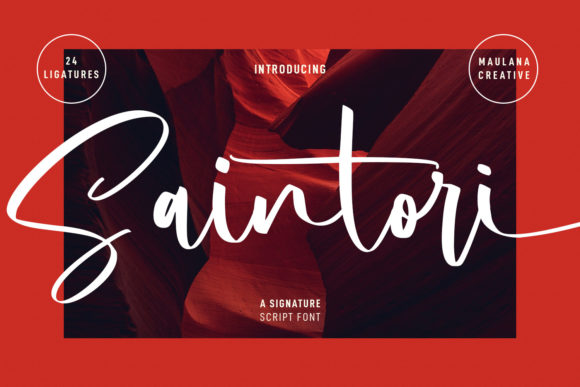
Step into the realm of artistry with Saintori Font, a captivating creation by Maulana Creative, where elegance and uniqueness intertwine. This exquisite script font, adorned with medium contrast strokes, dances across your designs with a lively rhythm, creating a visual symphony that captivates the senses.
With its playful characters, Saintori Font breathes life into your words, transforming them into captivating expressions of art. Its graceful ligatures and delicate alternates add an air of sophistication and charm, enhancing your designs with a touch of exclusivity.
Indulge in the versatility of Saintori Font, a font that effortlessly adapts to a myriad of creative endeavors. Whether you're designing logos, branding materials, social media posts, or crafting heartfelt invitations, Saintori Font rises to the occasion, adding an enchanting touch to every project.
Unleash your imagination and watch as Saintori Font elevates your creations to new heights. Its ability to effortlessly blend with various design styles makes it an indispensable tool for designers seeking to make a lasting impression.
Join the ranks of creative visionaries who have embraced Saintori Font, allowing their designs to transcend the ordinary and enter the realm of the extraordinary. Let your creativity flourish as you discover the endless possibilities that await you with this remarkable script font.